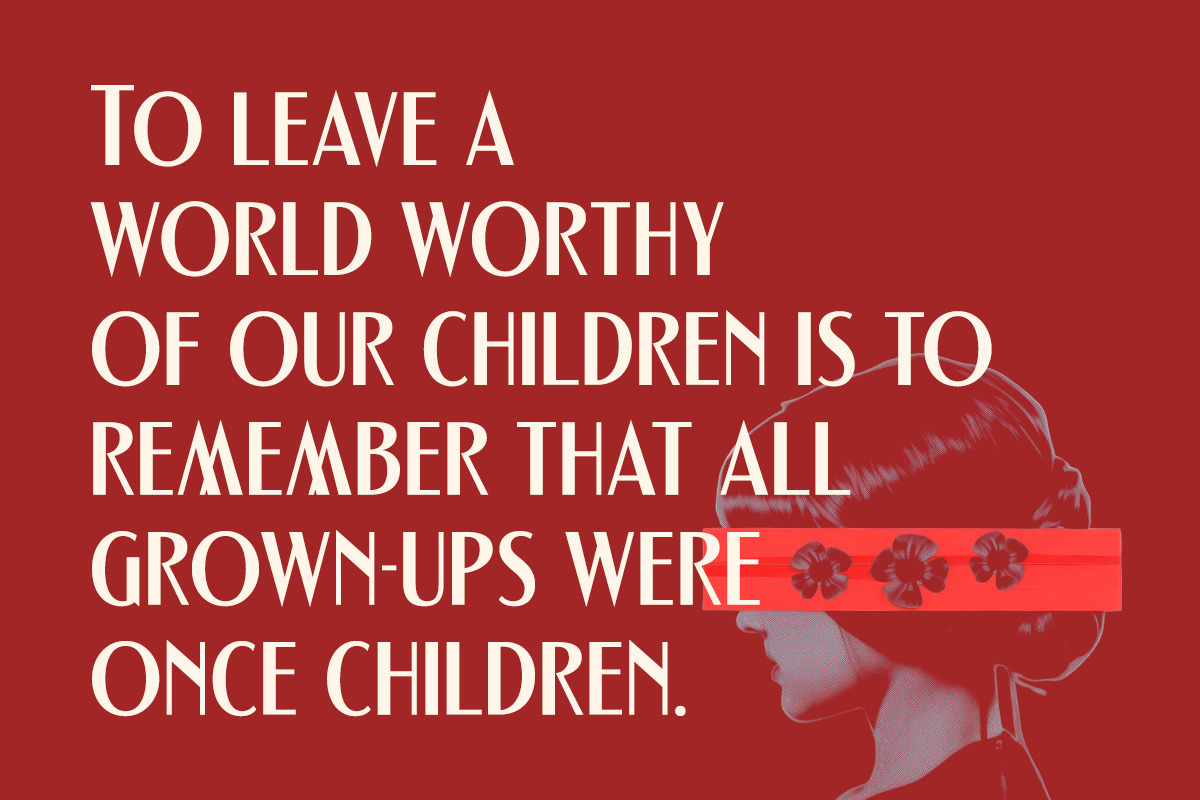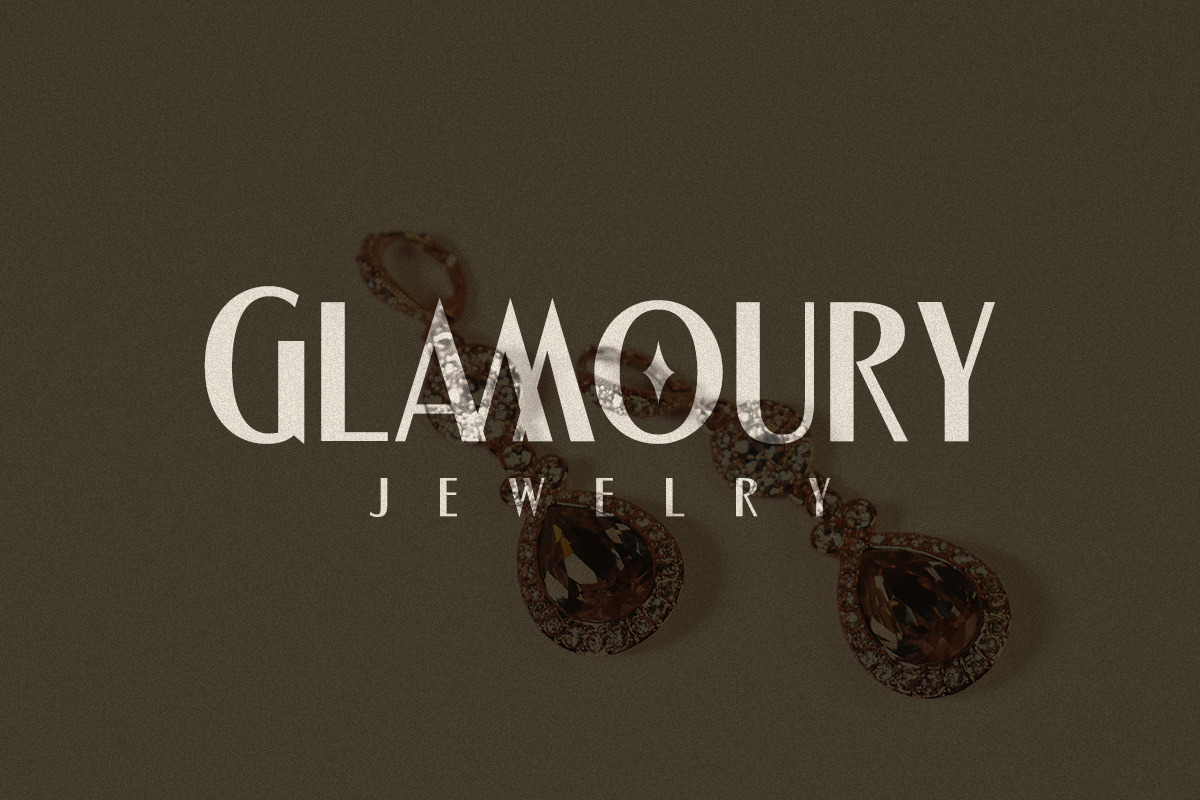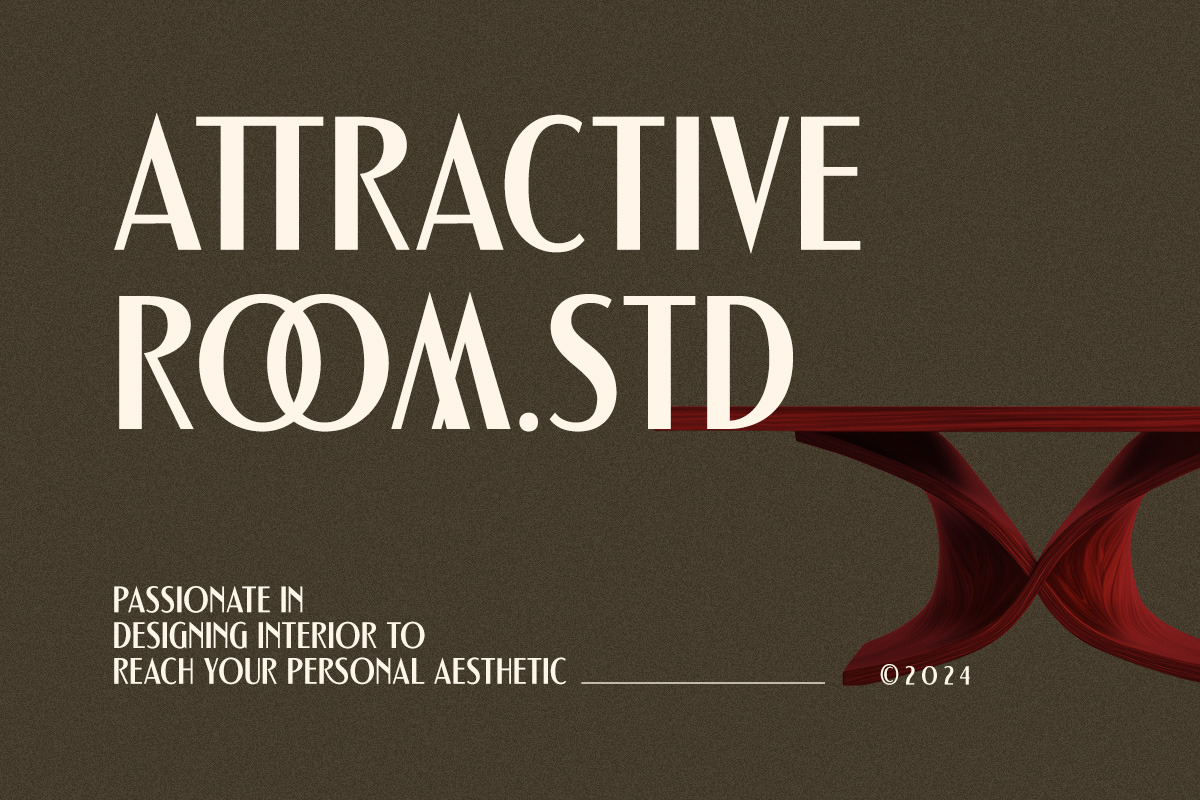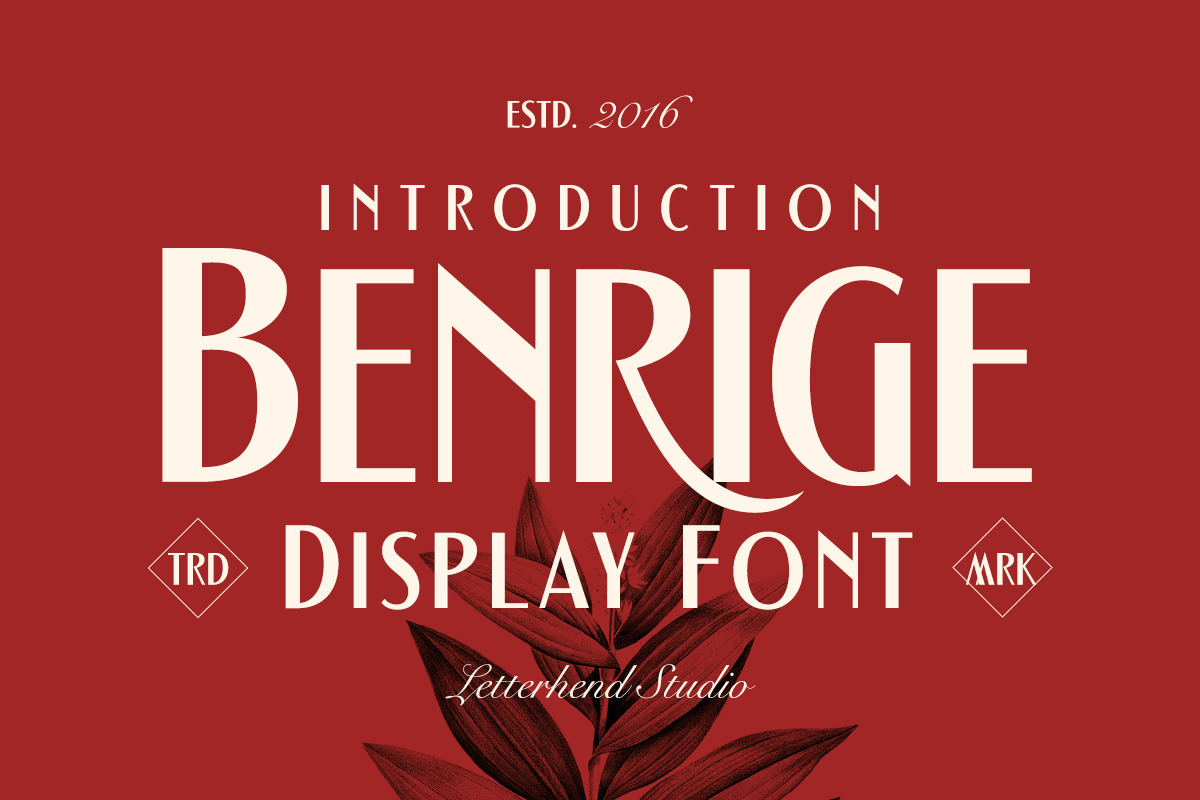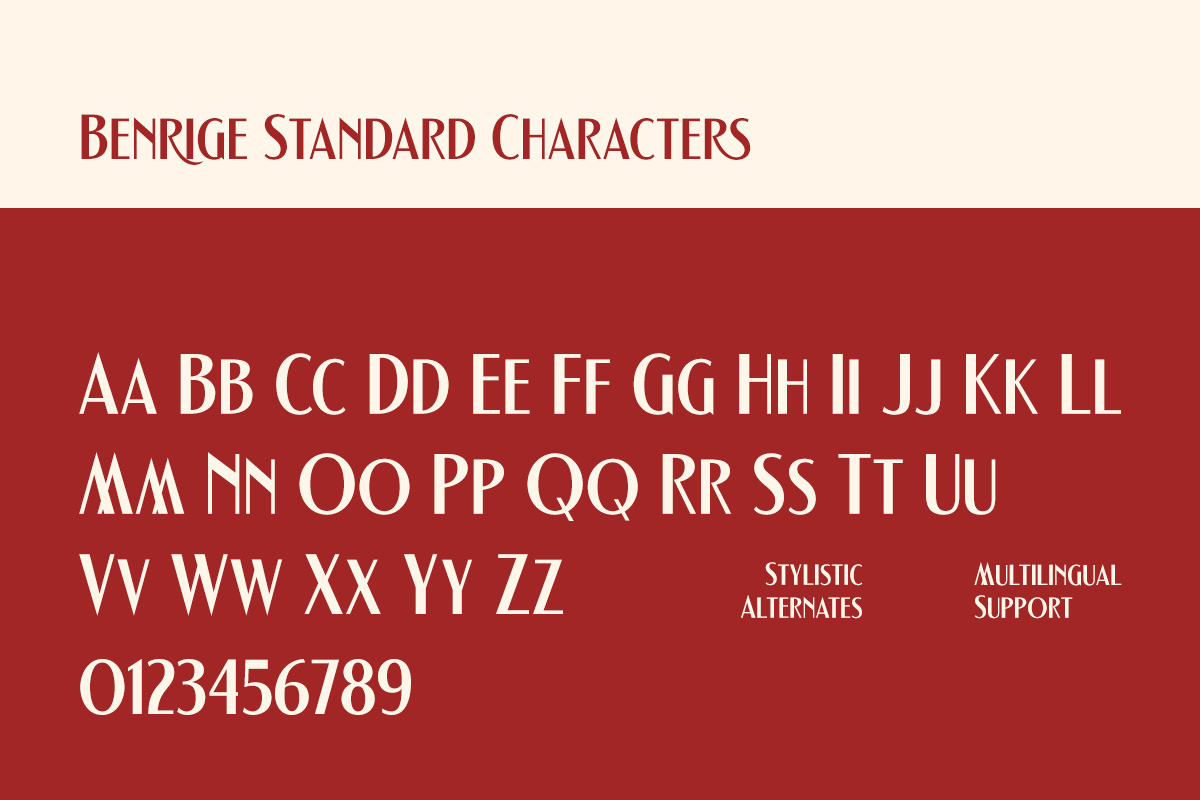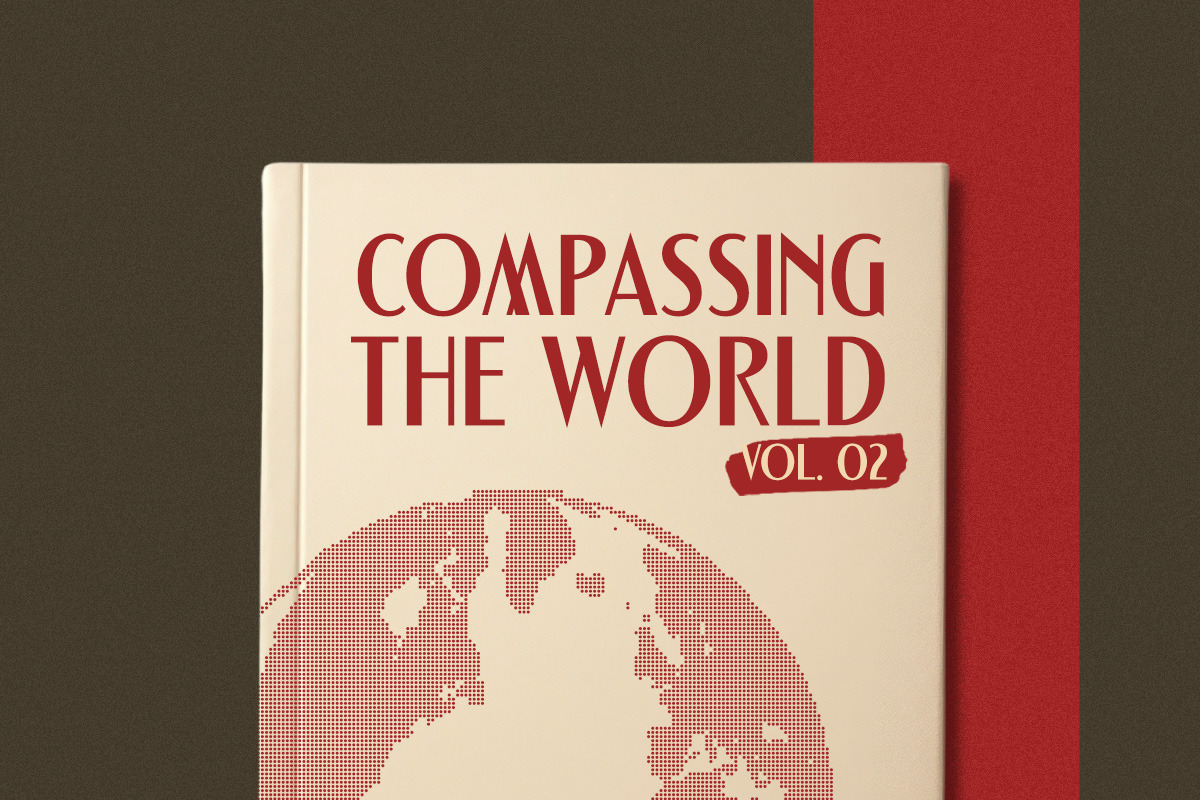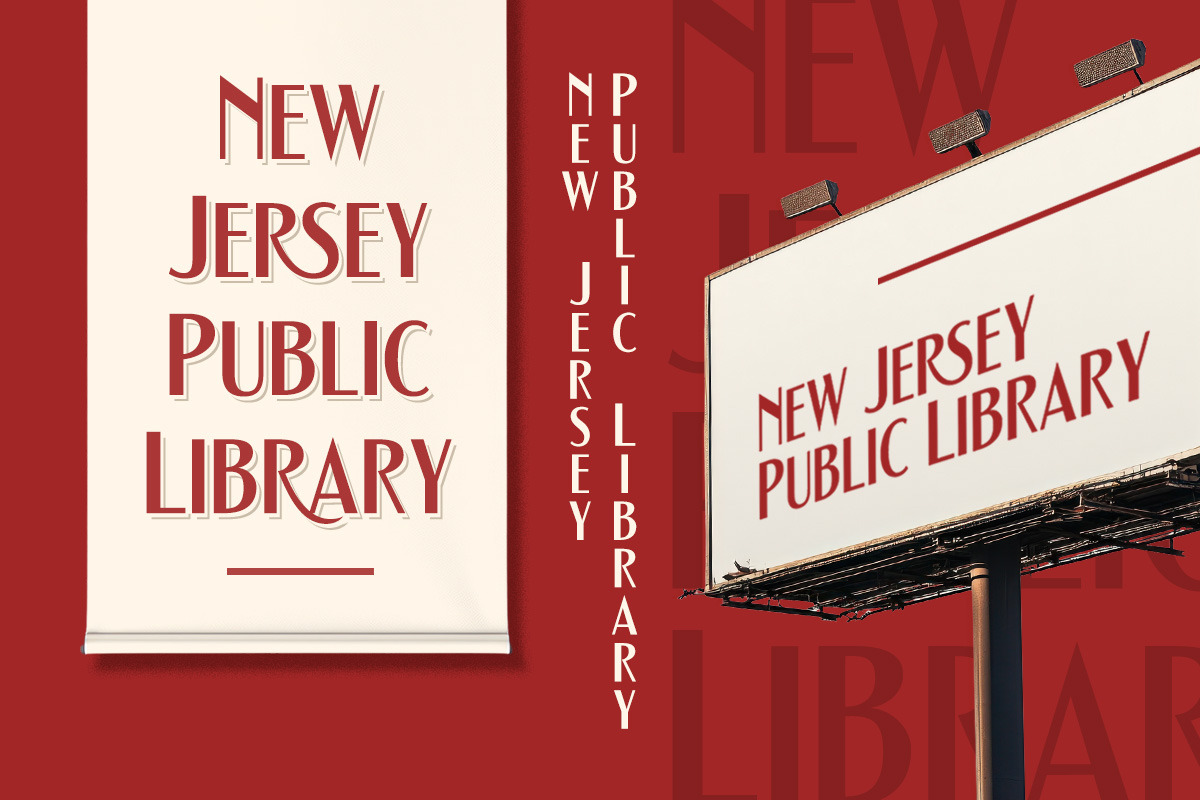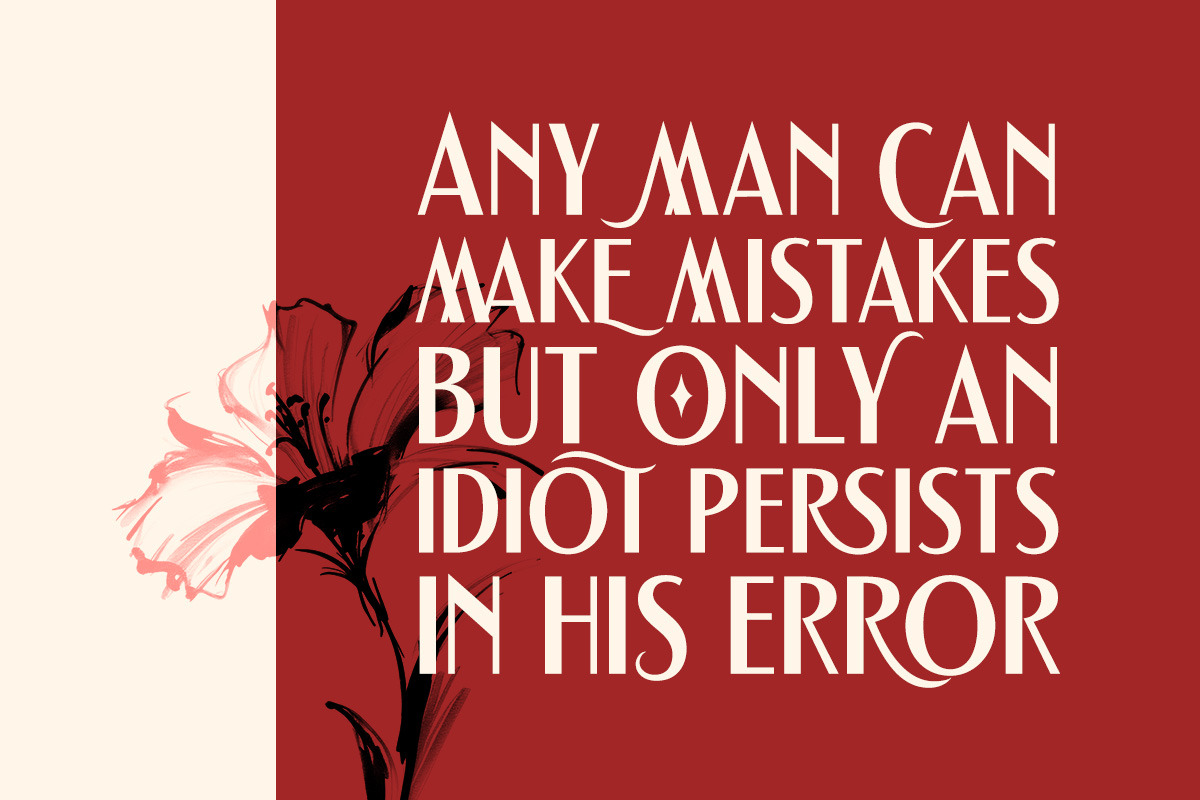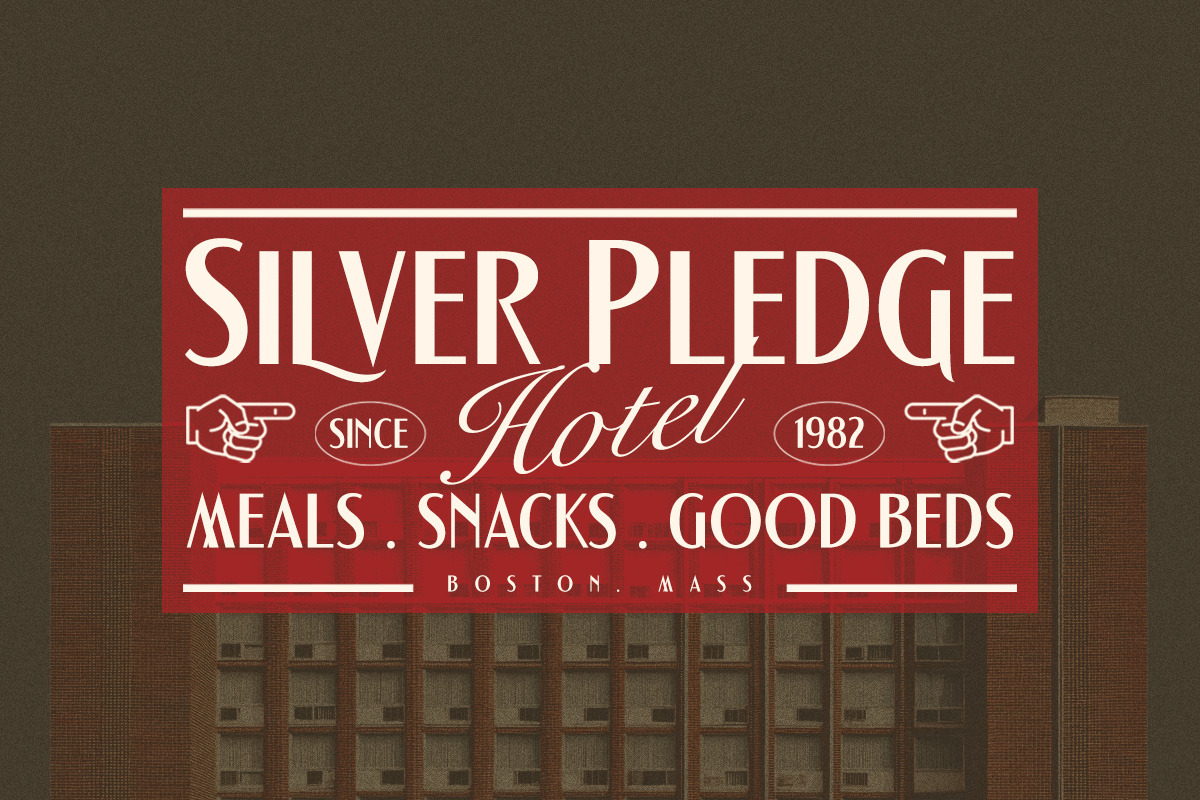
Benrige Display Font
The Benrige display font showcases a harmonious fusion of vintage aesthetics and modern sensibilities. Its stylishly bold characters stand out, making it perfect for eye-catching headlines, branding, and creative projects that require a touch of elegance.